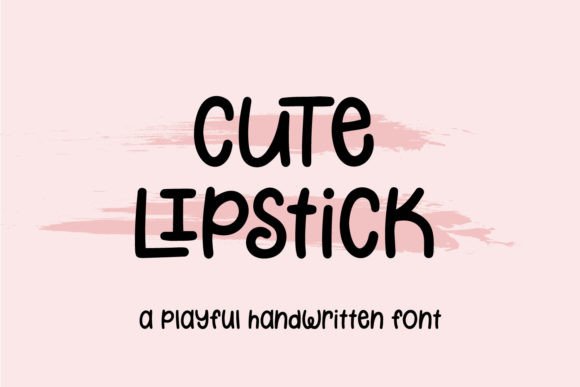
Forging a Captivating Connection with Cute Lipstick Font: A Journey of Sweetness and Playfulness
In the realm of visual communication, where words dance and designs come alive, fonts hold the power to evoke emotions, set the tone, and create lasting impressions. They are the silent storytellers, weaving their magic through the intricate strokes and curves that define their characters. Enter Cute Lipstick Font, a delightful and captivating creation that embodies sweetness and playfulness. An exceptional script font, it possesses a unique charm that will add a touch of whimsy to your projects.
Explore the World of Cute Lipstick Font: A Typographic Celebration
Cute Lipstick Font is a journey of discovery, inviting you to explore a world where creativity knows no bounds. With its enchanting uppercase and lowercase letters standing at the same height, this font exudes a super cute and eye-catching appearance. Its perfectly easy-to-read nature makes it an ideal choice for various design projects, ensuring clarity and visual appeal. But what truly sets Cute Lipstick Font apart are its many ligatures, those elegant connections between letters that add an extra touch of customization and sophistication to your designs.
A Symphony of Emotion: Touching Hearts with Cute Lipstick Font
In the symphony of emotions, Cute Lipstick Font plays a sweet and playful melody. Its carefully crafted characters evoke a sense of joy, warmth, and lightheartedness. Imagine the joy on your readers' faces as they encounter your designs adorned with this charming font. It's the perfect choice for projects that aim to connect with a younger audience, evoke nostalgia, or simply spread happiness. Whether you're designing invitations, greeting cards, packaging, or social media posts, Cute Lipstick Font will add a touch of irresistibility that leaves a lasting impression.
Unleash Your Creativity: A Font That Inspires Imagination
Cute Lipstick Font is more than just a pretty face; it's a gateway to boundless creativity. Its versatility allows it to seamlessly adapt to a wide range of projects, from personal creations to professional designs. Whether you're a blogger, a designer, or a small business owner, this font will empower you to express yourself uniquely. Let your imagination soar as you craft beautiful logos, eye-catching headlines, stunning social media graphics, and so much more. Cute Lipstick Font will be your faithful companion, adding a dash of sweetness and playfulness to every project you undertake.